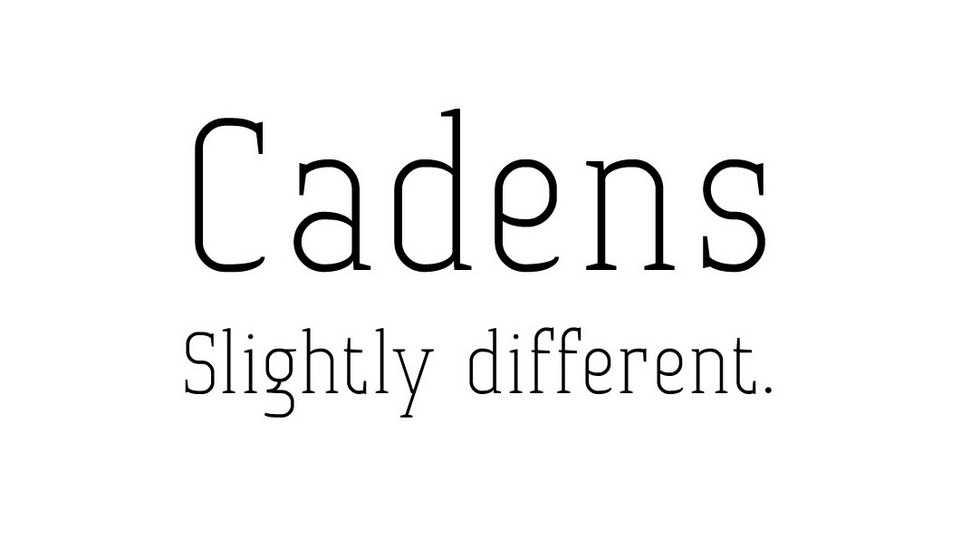
Download Cadens font, a light serif typeface with some twist. It features geometric letter shapes with sharp terminals. Cadens font works best for display use, headlines and posters.
Designer: Alexander Sperl